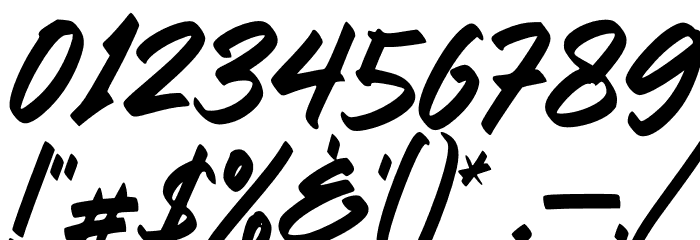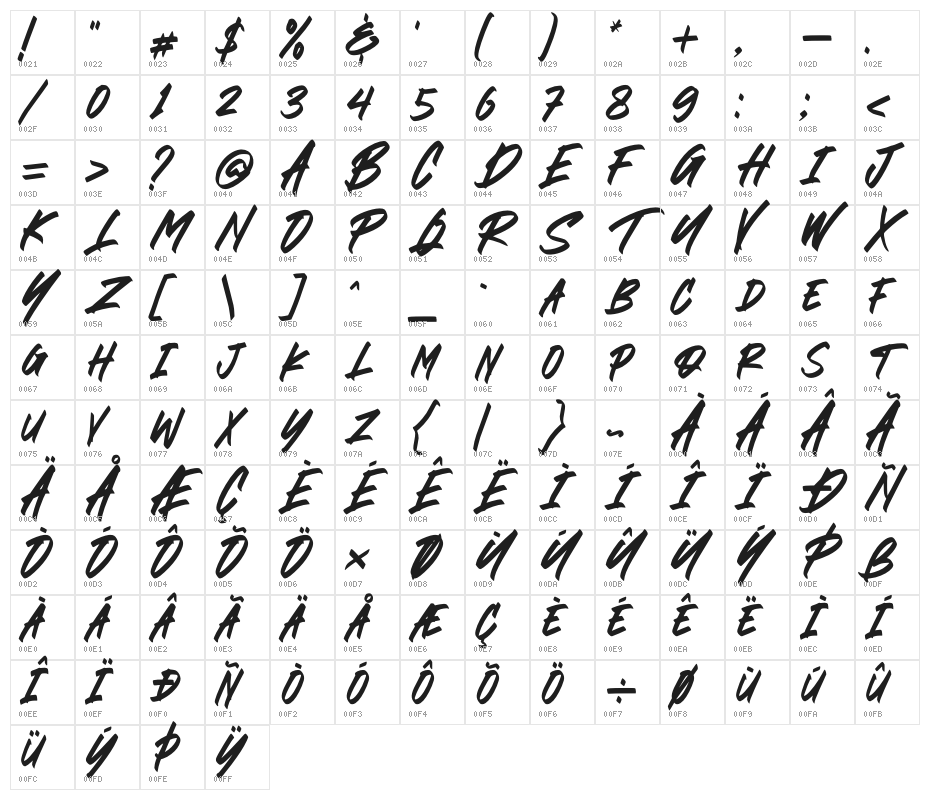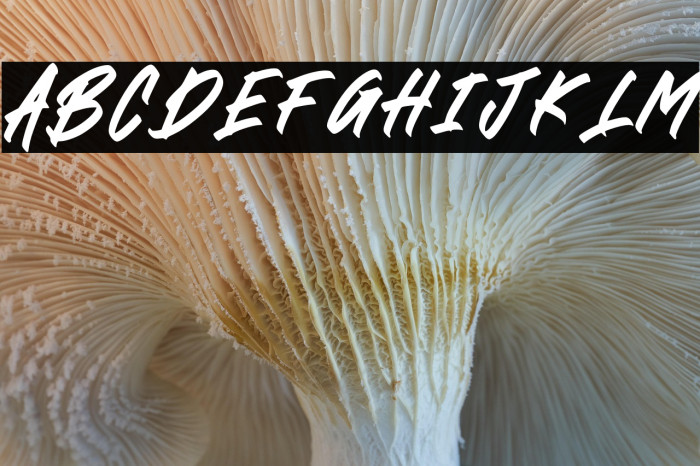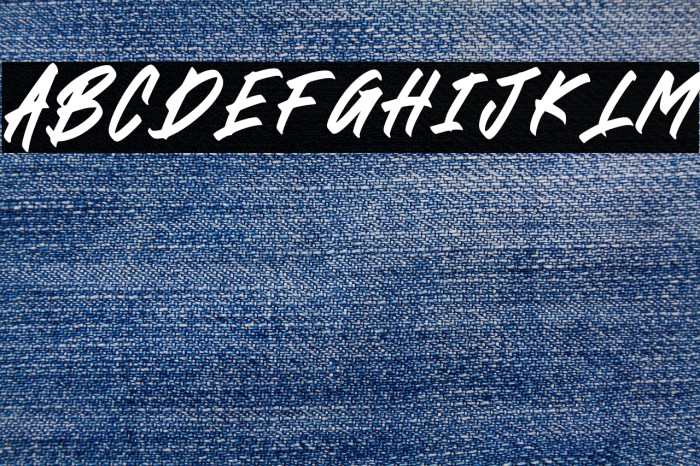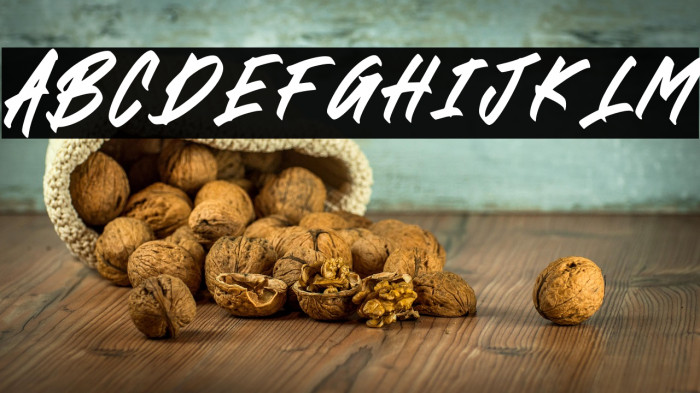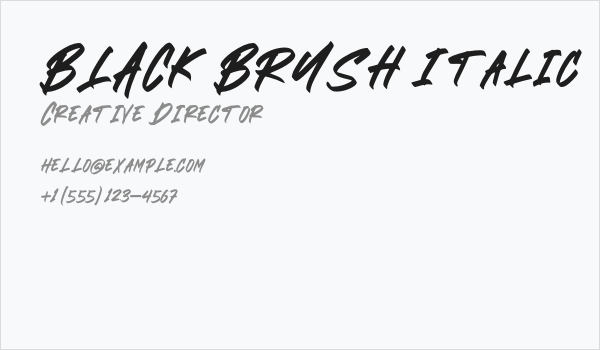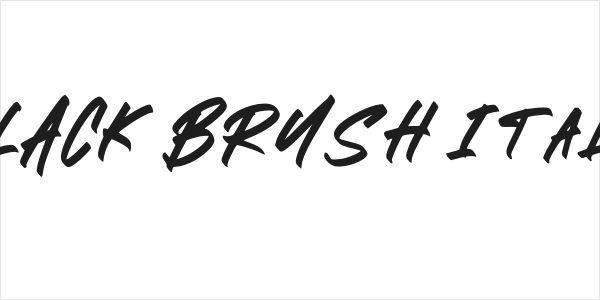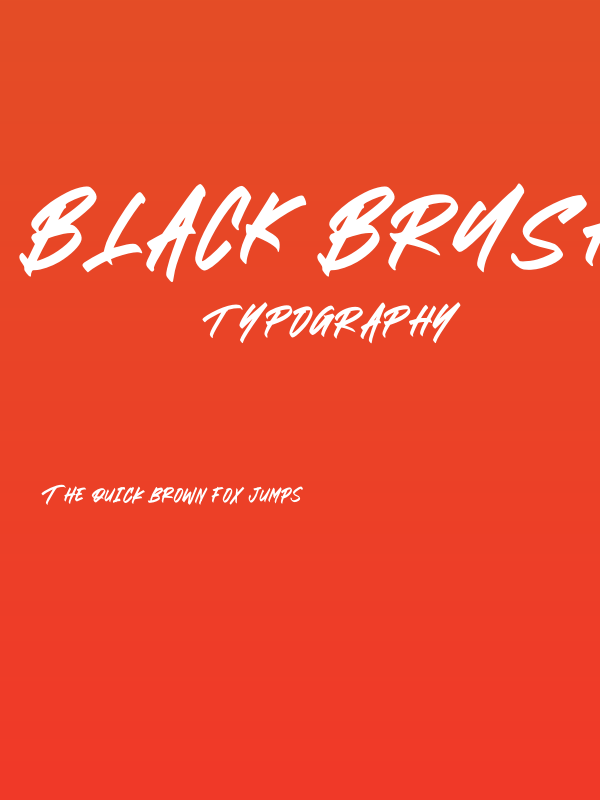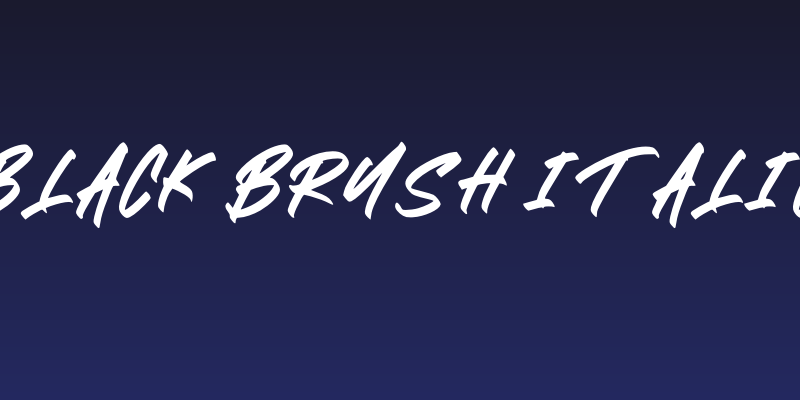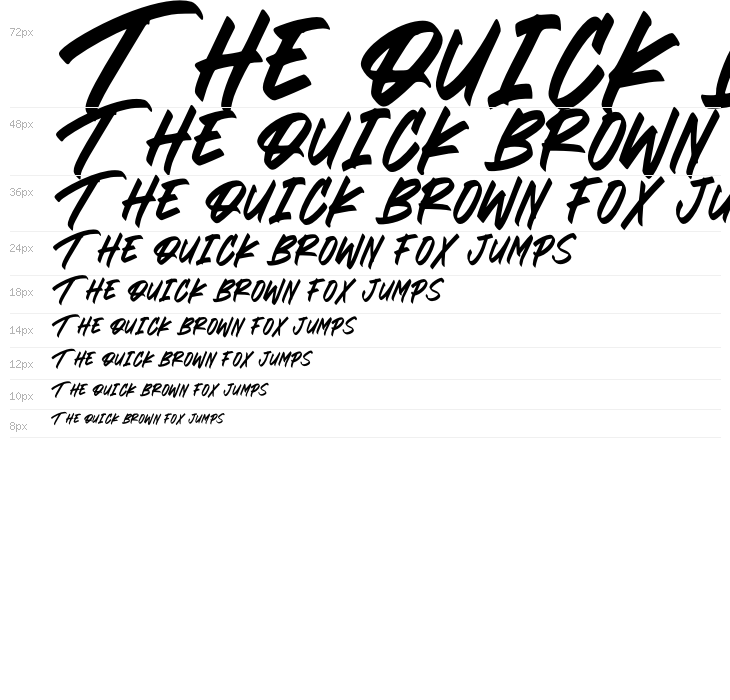
BLACK BRUSH Italic Font
BLACK BRUSH Italic Description
This font exudes a bold and dynamic energy, characterized by its brush-like strokes that give it a handwritten appearance. The letters are slanted, adding to the sense of motion and fluidity. Each character is crafted with thick, expressive lines that vary in width, creating a sense of artistic flair. The uppercase and lowercase letters maintain a consistent style, with sharp angles and sweeping curves. Numbers and special characters follow the same aesthetic, ensuring a cohesive look across all text. This font is ideal for projects that require a personal touch or a creative, informal vibe.